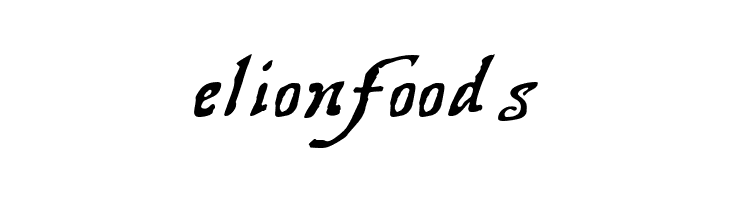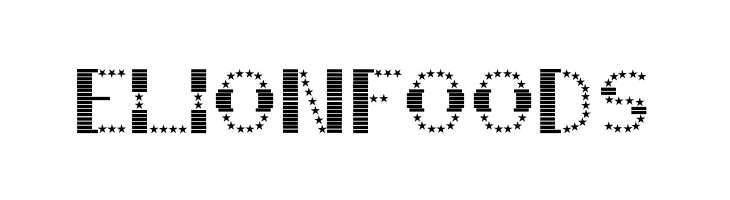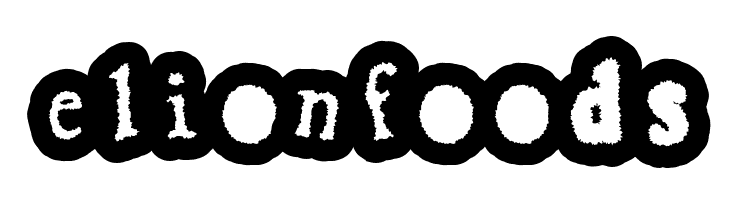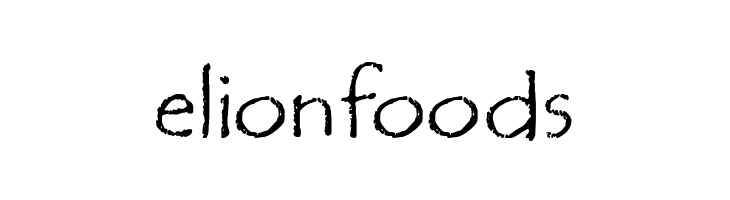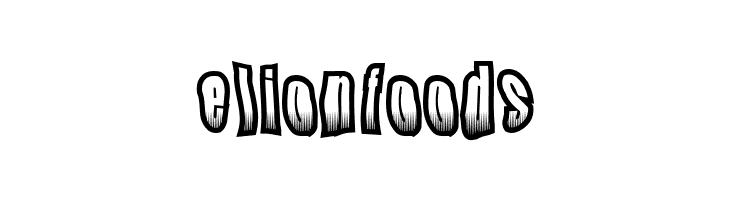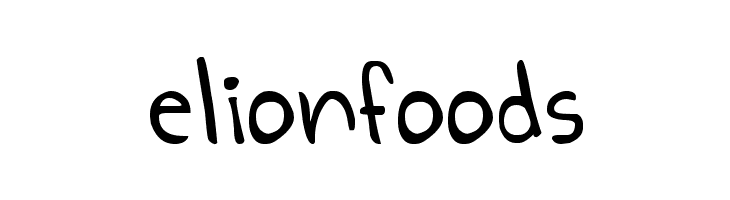
A rugged, hand-drawn font with a mysterious, adventurous style.
( Fonts by Dieter Schumacher )
A decorative font with characters made of stripes and stars, offering a bold and festive look.
( Fonts by Daniel Gauthier )
A playful, bold font with bubbly outlines and textured interiors.
A distressed, hand-drawn font with a playful and mysterious vibe.
( Fonts by Daniel Gauthier )
A bold, wavy font with textured interiors and strong outlines.
( Fonts by Miguel Rios - miguelrios.com.mx )
A playful, handwritten font with bold, rounded strokes and a casual, dynamic style.
( Fonts by Fabrika De Typos - Marcio Hirosse - fabrikadetypos.blogspot.com )
A bold, dynamic script font with elegant, interconnected characters.